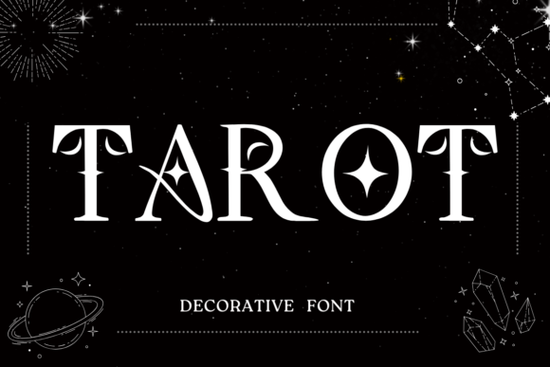
If you're looking for a decorative font that brings a soft, mystical charm to your designs without feeling overdone or cliché the Tarot Font is worth trying. It’s not just another “witchy” typeface with heavy gothic weight or dramatic serifs. Instead, it balances elegance and playfulness through subtle celestial accents: tiny stars dotting the “i”s, delicate half-moons replacing dots or terminals, and smooth, rounded letterforms that feel hand-drawn but still highly legible at medium sizes. It fits naturally in projects where you want warmth and wonder not drama or darkness.
When does Tarot Font work best?
This font shines in contexts where personality matters more than strict formality. Think greeting cards for birthdays or solstices, small-batch candle labels, journal covers for mindfulness or reflection themes, or even boutique wedding stationery with a boho or celestial twist. Because the glyphs are carefully spaced and the alternate characters (like star-dotted “j” or crescent-topped “t”) are included as OpenType features, it’s easy to add quiet moments of magic without overdesigning.
It’s especially helpful for print-on-demand sellers who need fonts that stand out in thumbnail previews on Etsy or Redbubble but still scale well across mugs, tote bags, and digital stickers. Since the base letters are clean and moderately weighted, they hold up even when printed small or embroidered with moderate stitch count.
How is it different from other decorative fonts?
Many decorative fonts lean heavily into one mood: either ornate and vintage, bold and modern, or overtly fantasy-themed. Tarot sits comfortably between categories. It’s lighter than Tarot Font, less intricate than script fonts like Celestial Script Font, and more intentional than generic “whimsical sans” options. The stars and moons aren’t tacked on they’re integrated into the letter structure, so they don’t break visual rhythm.
You’ll also find built-in alternates for common letters (a, g, y, t), plus ligatures and swashes that activate automatically in design apps that support OpenType features no manual swapping needed. That saves time whether you’re batch-creating social media quotes or prepping files for a local print shop.
What kinds of projects pair well with it?
- Hand-lettered-style quotes Use it for affirmations, moon phase calendars, or daily intention cards.
- Small business branding Works well for herbal apothecaries, crystal shops, tarot readers, or holistic wellness studios that want approachable, grounded mysticism not theatrical flair.
- Digital stickers and Procreate brushes The light weight and open counters make it readable even at 24pt on mobile screens.
- DIY craft templates Great for printable planners, gratitude journals, or seasonal activity sheets aimed at teens and adults (not just kids).
One thing to keep in mind: because of its decorative nature, Tarot Font isn’t ideal for long paragraphs or body text. Reserve it for headings, short phrases, logos, or accent words and pair it with a neutral sans-serif (like Montserrat or Poppins) for balance. You’ll get contrast without visual competition.
If you’ve been searching for a decorative font that feels personal, calm, and quietly meaningful rather than loud or trend-driven Tarot Font is a thoughtful choice. It doesn’t try to do everything. It does one thing well: adding gentle, celestial charm to designs that already have heart.
- ✔️ You need a font for short headlines, quotes, or logo accents not long-form text.
- ✔️ Your project leans into themes like intuition, reflection, nature cycles, or mindful living.
- ✔️ You want built-in stylistic alternates and OpenType features no extra plugins or manual tweaks.
- ✔️ You’re comfortable pairing it with a simple sans-serif or serif for contrast.